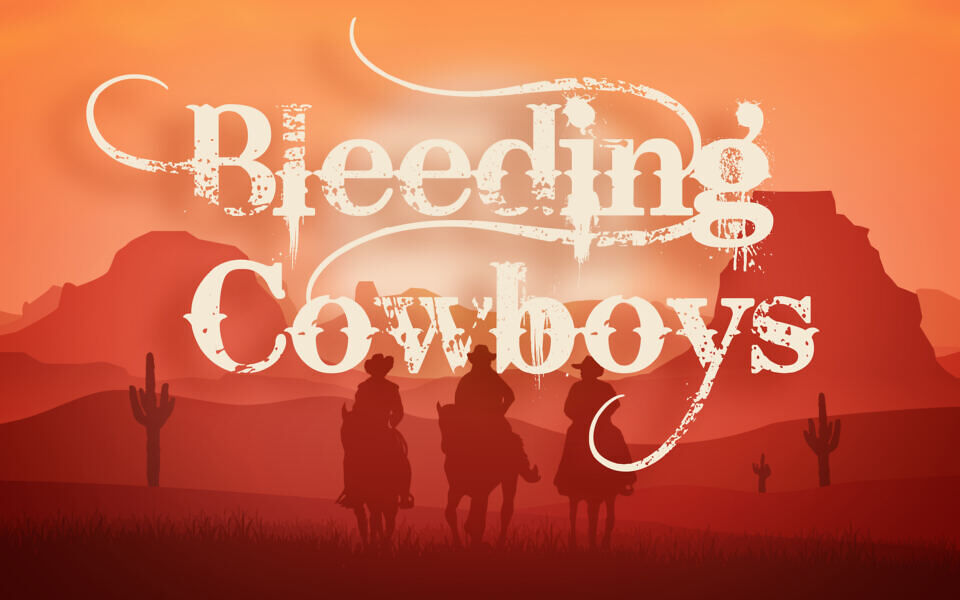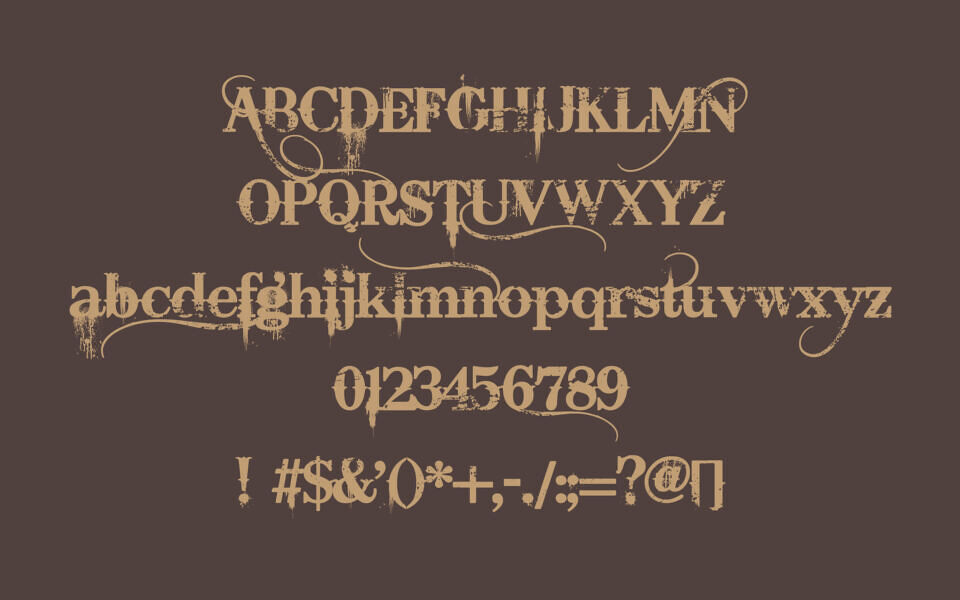
Bleeding Cowboys is a bold, Western-style display font with a distressed, grunge aesthetic. Its hand-drawn letters feature rough textures, splatters, and dramatic swashes, creating a rugged, rebellious look. Inspired by vintage cowboy themes and rock culture, it’s ideal for posters, album covers, and edgy branding that demand a striking, unconventional visual impact.